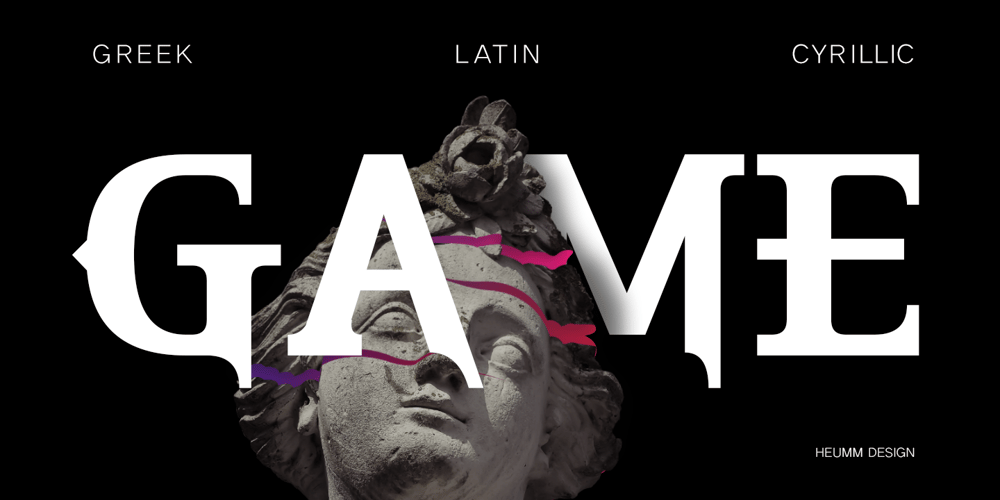
HU The Game Font Family was designed by Haerin Lee, ByoungHeon Park and published by Heummdesign. HU The Game contains 1 styles and family package options. HU The Game is a typeface appropriate for titles or headlines that need to be stressed out. We got motif from cruel games and reflected scary and horrifying impression in it. The edge of strokes are sharp, which makes you remind of the design of Black Letter of Middle Age. It especially goes well with special festivals like Halloween, so it would be helpful for you to make any images related to them.HU The Game – это шрифт, подходящий для заголовков или заголовков, которые нужно выделить. Мы получили мотив из жестоких игр и отразили в нем пугающие и ужасающие впечатления. Край штрихов резкий, что напоминает дизайн Черной буквы средневековья. Это особенно хорошо сочетается со специальными фестивалями, такими как Хэллоуин, поэтому было бы полезно сделать любые изображения, связанные с ними.HU The Game είναι μια γραμματοσειρά κατάλληλη για τίτλους ή τίτλους που πρέπει να τονιστούν. Έχουμε μοτίβο από σκληρά παιχνίδια και αντανακλούσαμε τρομακτική και τρομακτική εντύπωση σε αυτό. Η άκρη των εγκεφαλικών επεισοδίων είναι αιχμηρή, γεγονός που σας κάνει να θυμάστε το σχέδιο του Black Letter of Middle Age. Ταιριάζει ιδιαίτερα με ειδικά φεστιβάλ όπως το Halloween, οπότε θα ήταν χρήσιμο να δημιουργήσετε εικόνες που σχετίζονται με αυτά.